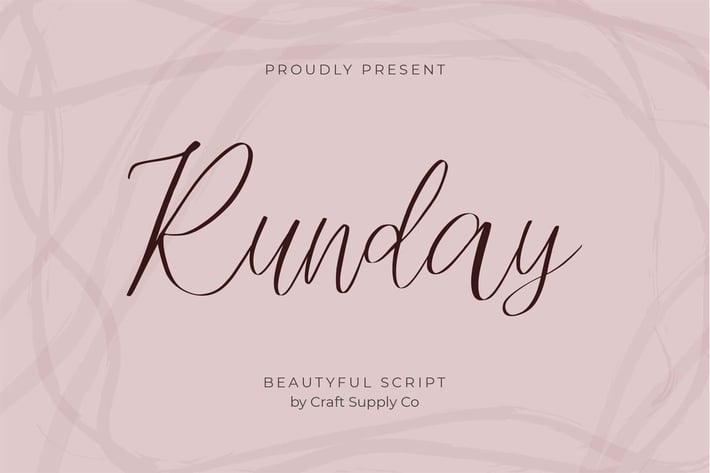
Runday - Modern Script Font
Introducing : Runday - Modern Script Font
Runday - Modern Script Font is a modern handwritten script font with lovely touch. Runday - Modern Script Font will work perfectly for fashion, e-commerce brands, trend blogs, wedding boutiques or any business that wants to appear upscale and chic.
Runday - Modern Script Font also Suitable for Logo, greeting cards, quotes, posters, branding, name card, stationary, design title, blog header, art quote, typography, art, modern envelope lettering or book design, happening style like handdrawn design or watercolor design theme, craft design, any DIY project, book title, or any purpose to make your art/design project look pretty and trendy.
Standard & Special Ligatures
Accents/Multilingual characters (AÀÁÂÃÄÅCÇDÐEÈÉÊËIÌÍÎÏNÑOØÒÓÔÕÖUÙÜÚÛWYÝŸỲŸÆŒßÞ)